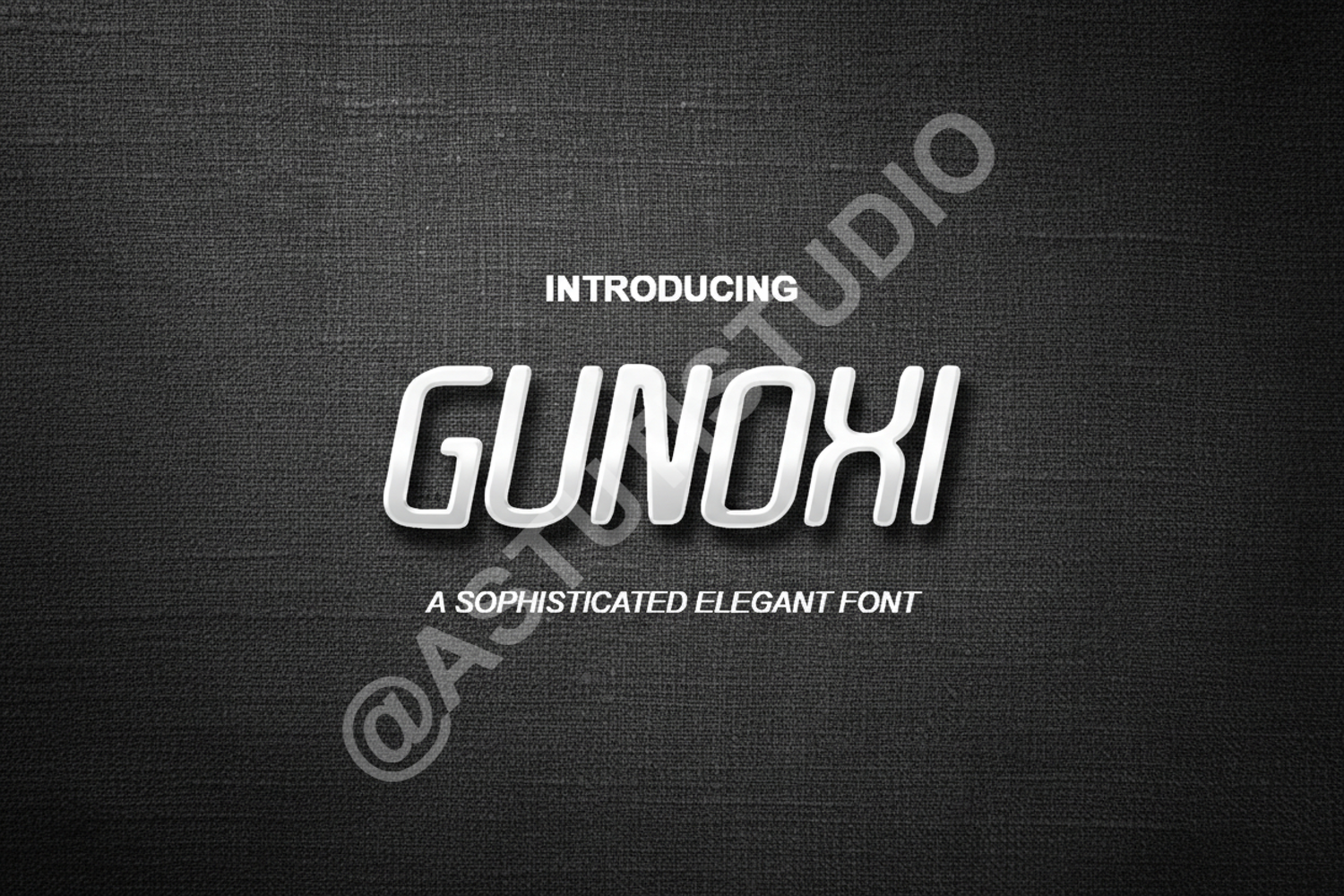
Gunoxi - Sophisticated Modern Sans Serif
Gunoxi
Introduction:
Elevate your design projects with Gunoxi, a premium modern sans serif typeface that exudes sophistication and precision. Crafted with clean lines and a contemporary geometric structure, Gunoxi is designed to provide maximum legibility while maintaining a unique visual identity. Whether you are working on a minimalist brand or a bold advertising campaign, this font offers the versatility needed to make your work stand out.
- Comprehensive Multilingual Support
- Standard Ligatures and Alternates
Optimized Use Cases:
- Professional Branding and Identity Systems
- High-end Editorial Layouts and Magazine Headers
- Modern Tech and Startup Logo Design
- Clean Web Design and User Interfaces
- Luxury Product Packaging and Labels
- Social Media Graphics and Promotional Banners